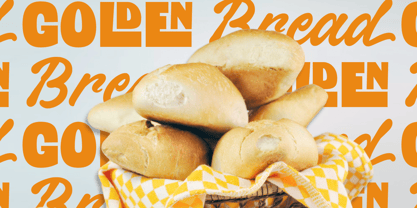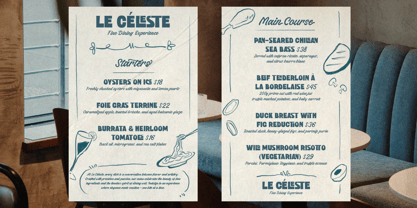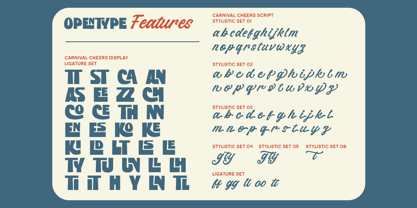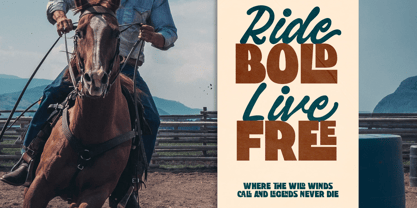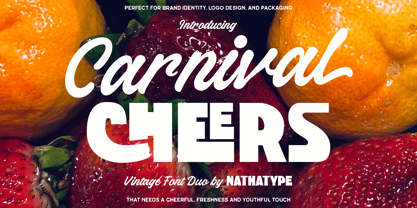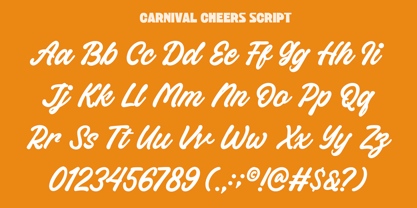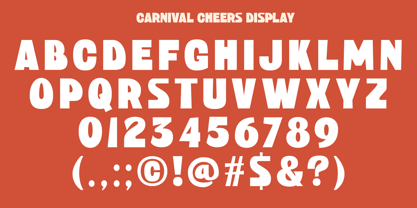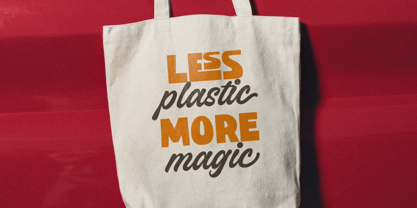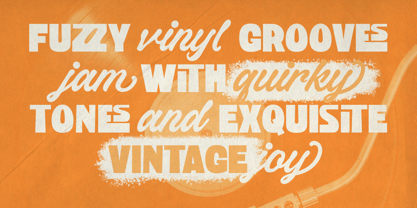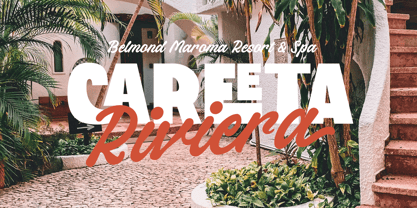
Carnival Cheers
Die Schriftfamilie Carnival Cheers wurde von Donis Miftahudin entworfen und von Nathatype veröffentlicht. Carnival Cheers enthält 2 Stile und Familienpaketoptionen.
Carnival Cheers is a handwritten display font duo that combines the beauty of cursive handwriting with the bold display. The handwritten font in Carnival Cheers is made in smooth, flowing strokes that resemble natural cursive handwriting with subtle contrast in each letterform. Its fluid lines and graceful movement make it perfect for adding a personal and stylish touch Complementing it, the display font is crafted with a bold weight and uppercases, designed to command attention while maintaining harmony with the script’s softness. In addition, enjoy the features here. Features: Ligatures Stylistic Sets Multilingual Supports PUA Encoded Numerals and Punctuations Carnival Cheers fits in branding, quotes, name cards, apparels, logos, posters, and many more designs. Find out more ways to use this font by taking a look at the font preview. Thanks for purchasing our fonts. Hopefully, you have a great time using our font. Feel free to contact us anytime for further information or when you have trouble with the font. Thanks a lot and happy designing.